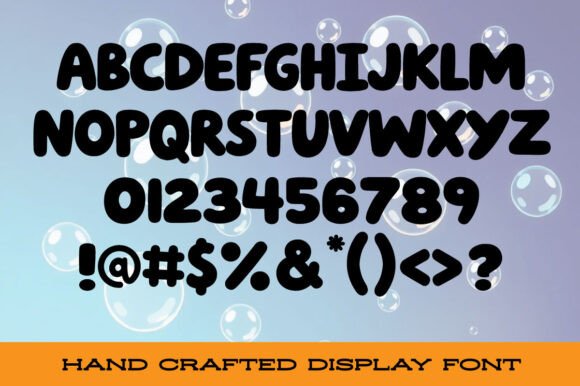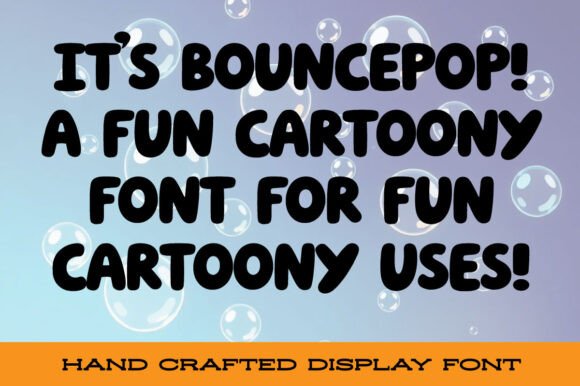
Introduction to Bouncepop Font
Bouncepop is a bold, bubbly font bursting with playful energy.
With its smooth, rounded edges and lively character, this font exudes a fun, cartoon-inspired vibe Perfect for childrenโs designs, playful branding, or any project that needs a cheerful and dynamic touch, Bouncepop adds a vibrant, bouncy personality to your text, making every word pop with excitement.
Key Features of Bouncepop Font
Why Choose Bouncepop Font?